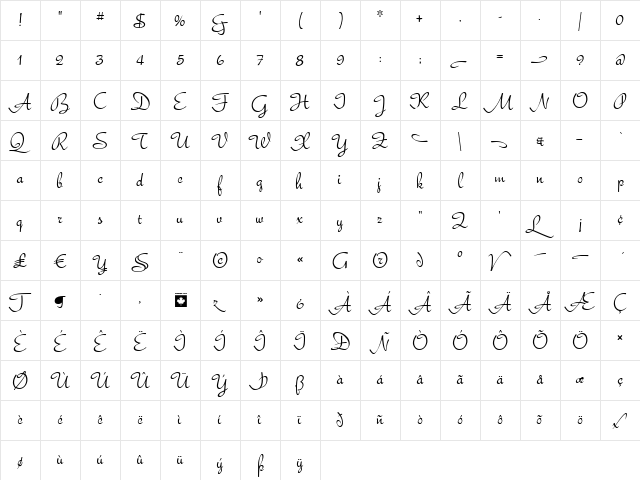
Bella Donna Regular
| Foundry | Canada Type |
Design Context for Bella Donna Typeface
Bella Donna is a composed and adaptable typeface that performs quietly and consistently across a wide range of design contexts.